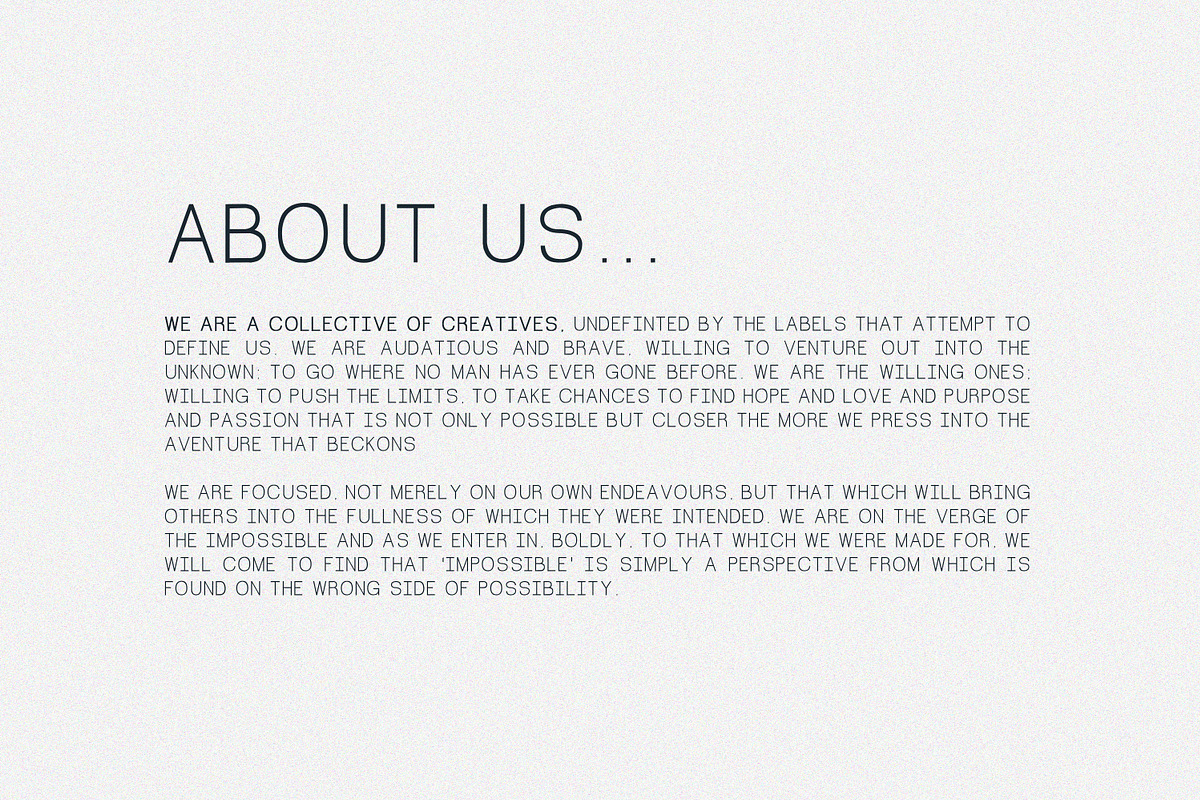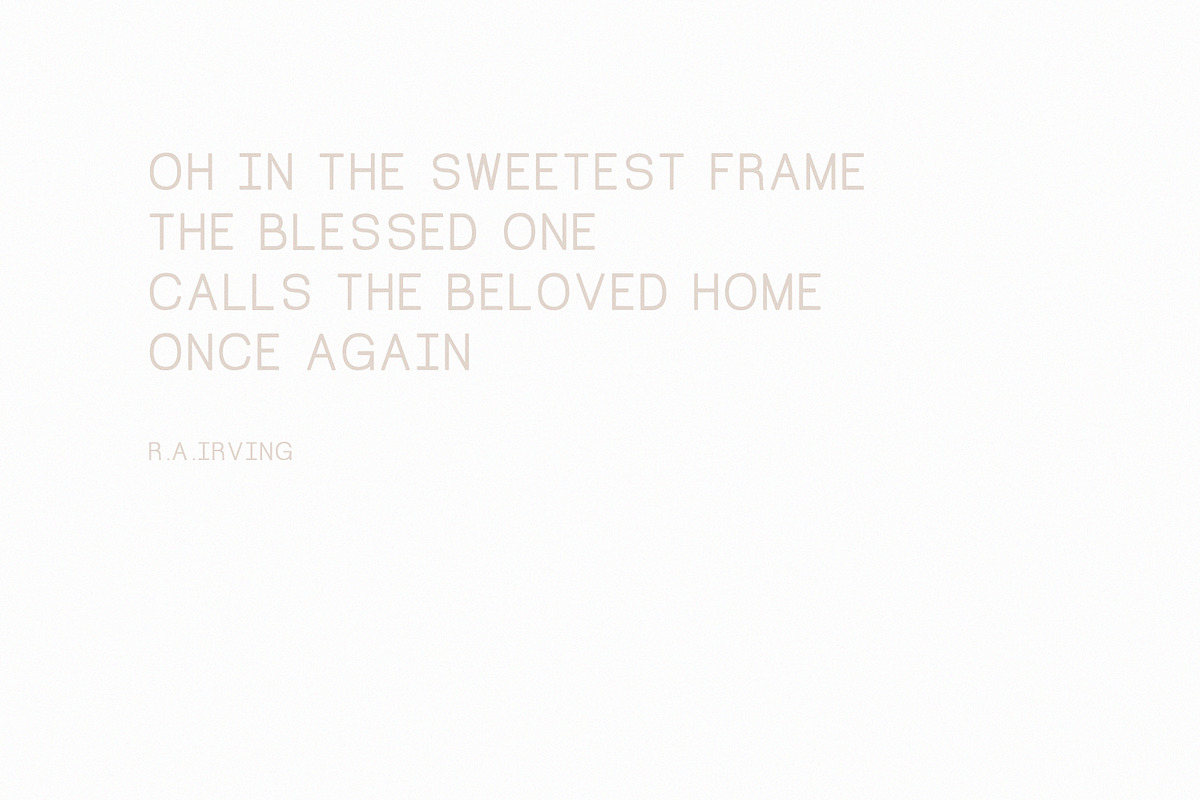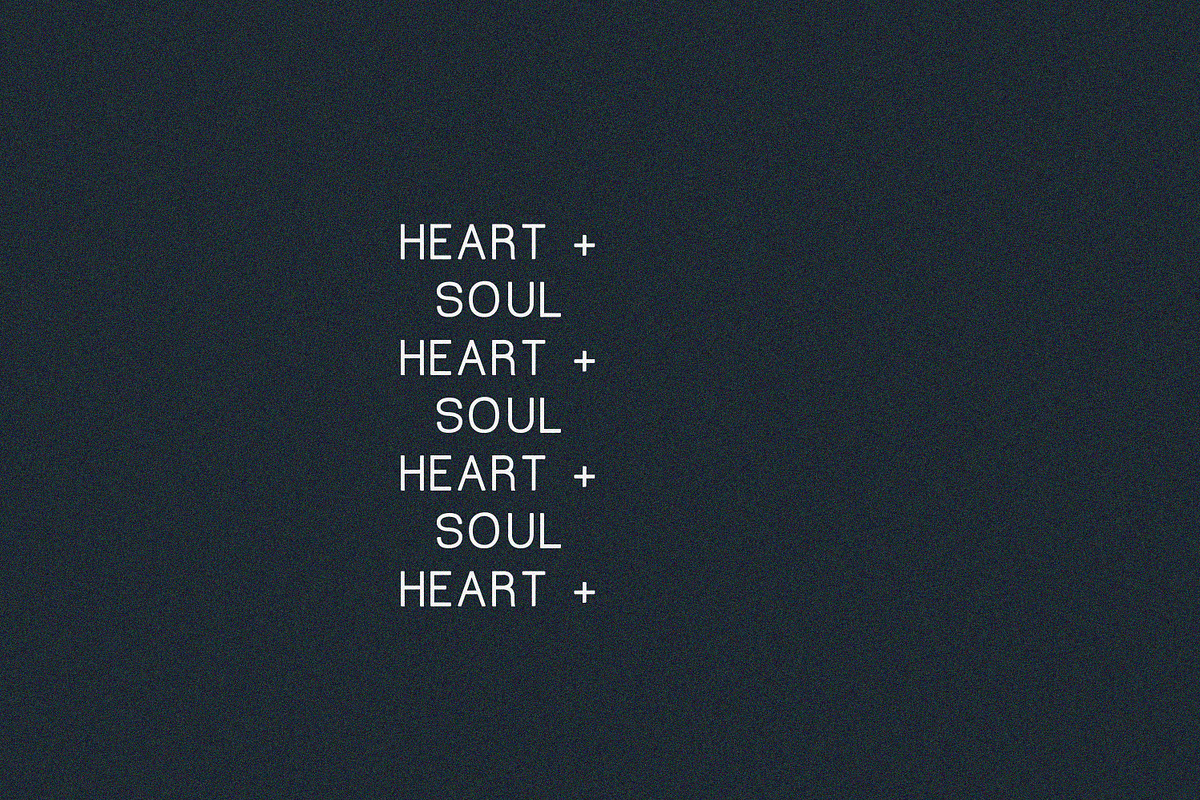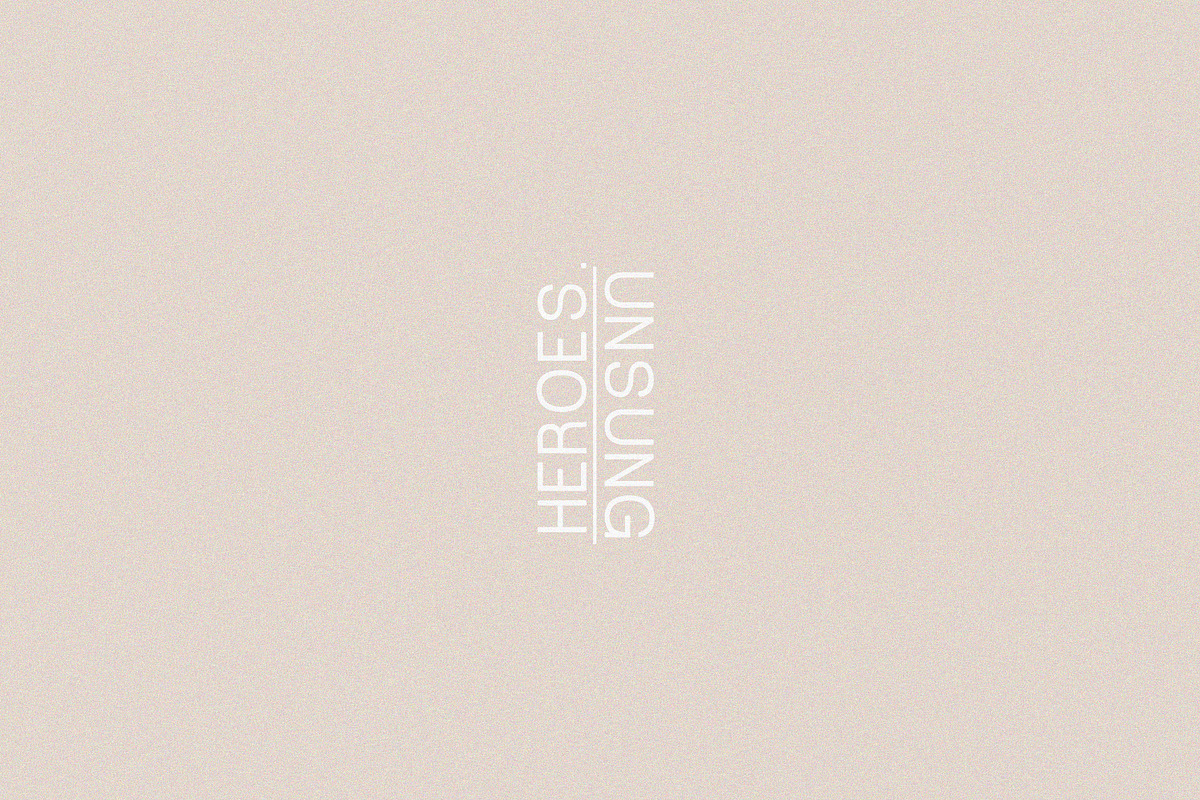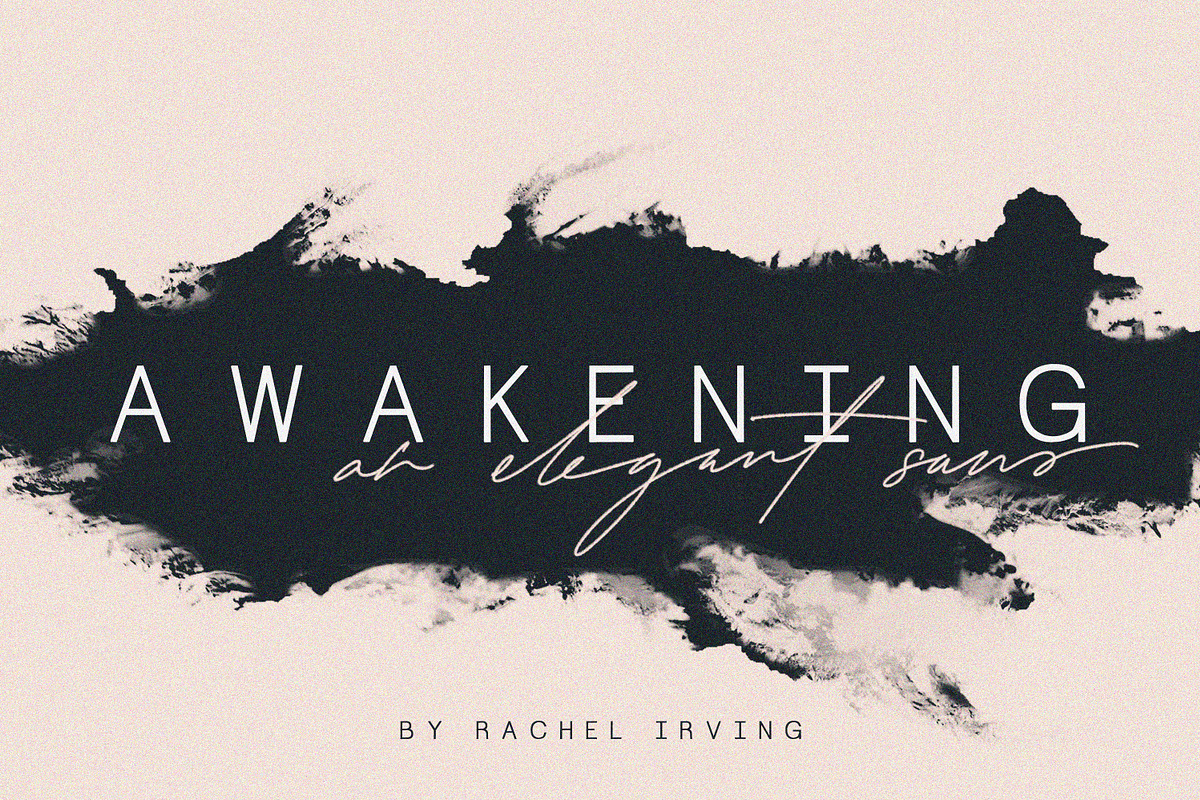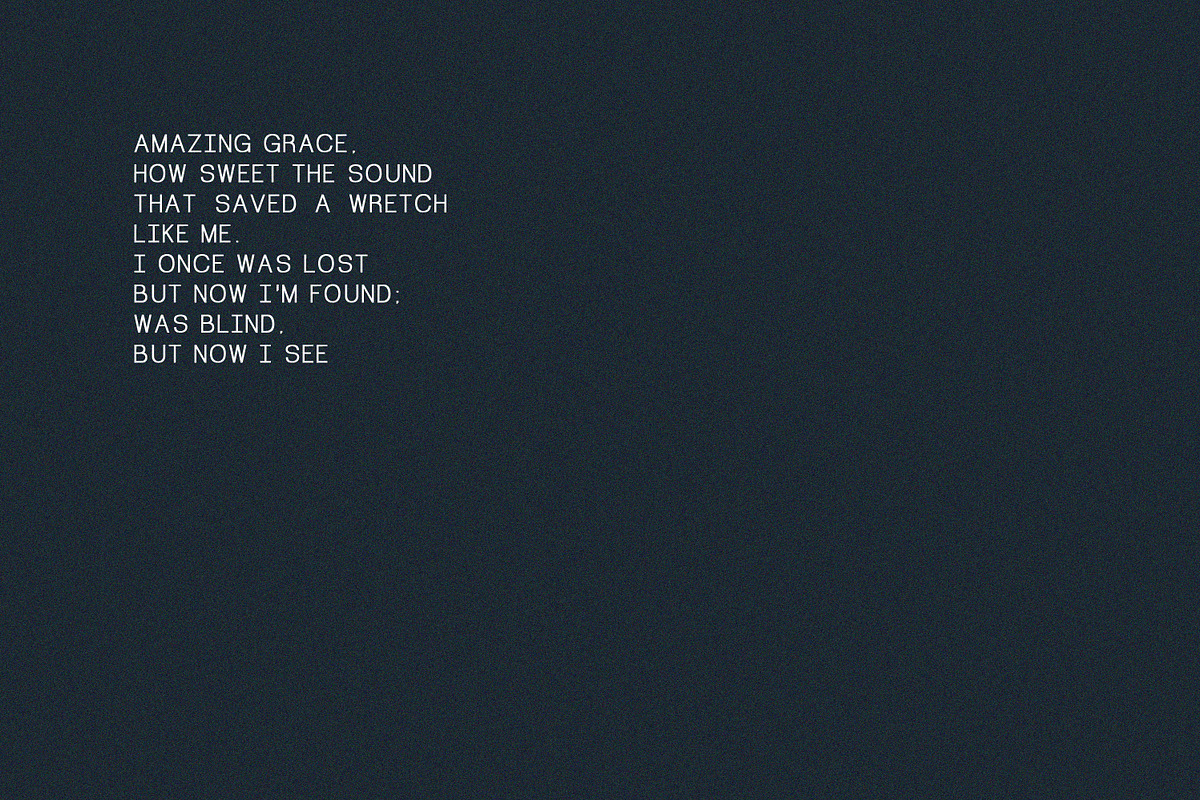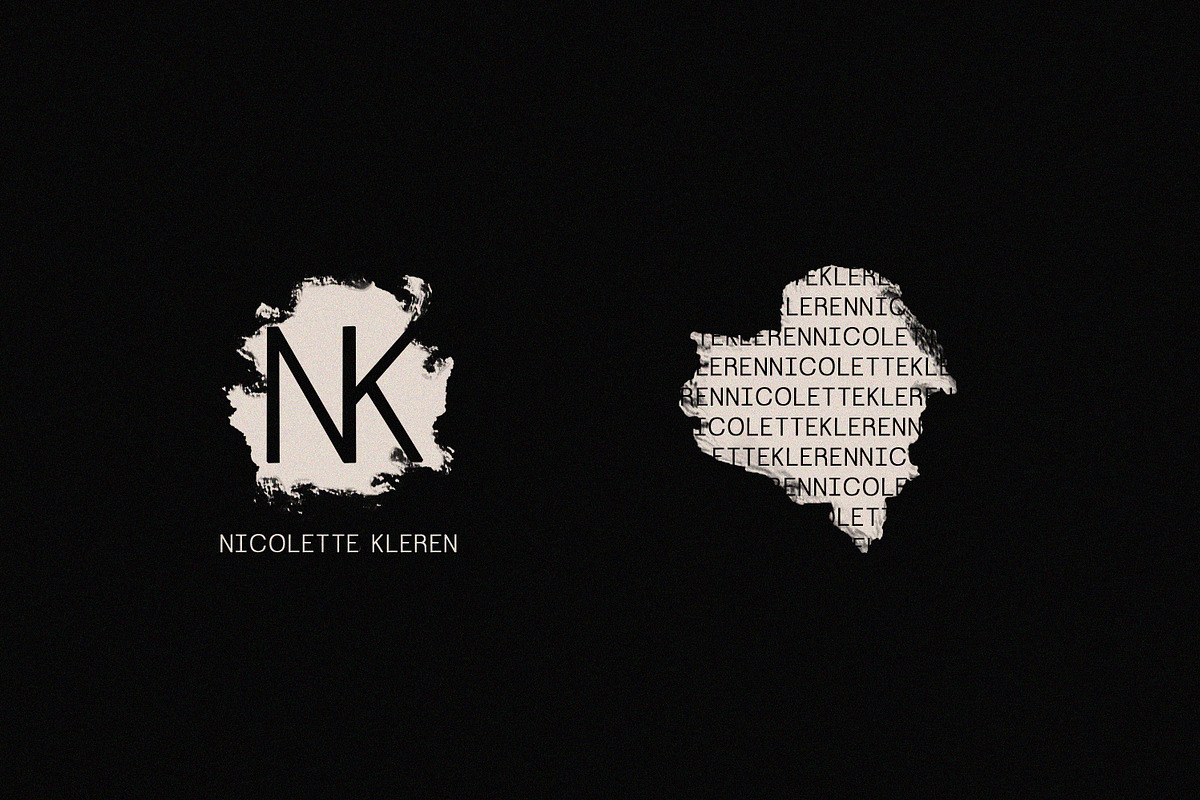
Awakening | Sans Serif Font
Inspired by the waking and rising of one called into greater things, and that call which echoes still, stirring one to awaken, Awakening is an elegant, sans serif font, crafted for simplicity and diversity in design.